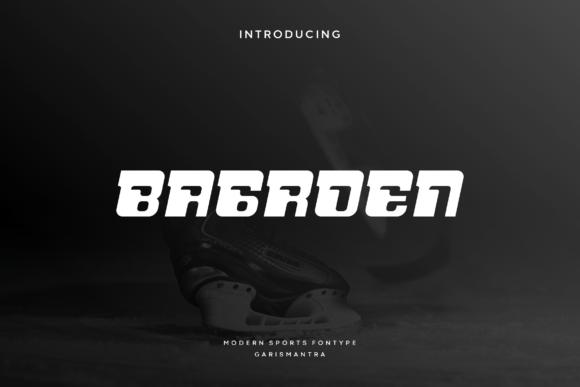
Journey into the world of visual intrigue with Bagroen Font, a display font designed to captivate your audience with its sleek, modern aesthetic. Crafted with meticulous attention to detail, Bagroen is the perfect tool for creating captivating memes, adding a touch of sophistication to your social media posts, or injecting personality into your branding projects.
Unleash your creativity and embrace the endless possibilities that await you with Bagroen Font. Its clean lines and sharp angles command attention, while its playful curves add a touch of whimsy. Bagroen effortlessly blends modern elegance with a retro charm, making it a versatile font suitable for a wide range of projects.
Picture this: your social media feed transformed into a gallery of visually stunning memes, each one adorned with Bagroen's captivating letters. Your audience will be captivated by the font's unique character, drawn in by its ability to elevate ordinary words into extraordinary expressions.
Step into the spotlight and let Bagroen Font amplify your brand's message. Its bold presence and distinctive style will set your designs apart from the ordinary, leaving a lasting impression on your customers. Whether you're creating logos, brochures, or website designs, Bagroen has the power to transform your creative vision into a tangible reality.
With Bagroen Font as your creative partner, you'll discover a world where visual expression knows no bounds. Its versatility and charm will ignite your imagination, inspiring you to create designs that resonate with your audience and leave a lasting impact. So, dive into the world of Bagroen Font today and unlock the potential for truly remarkable creations.